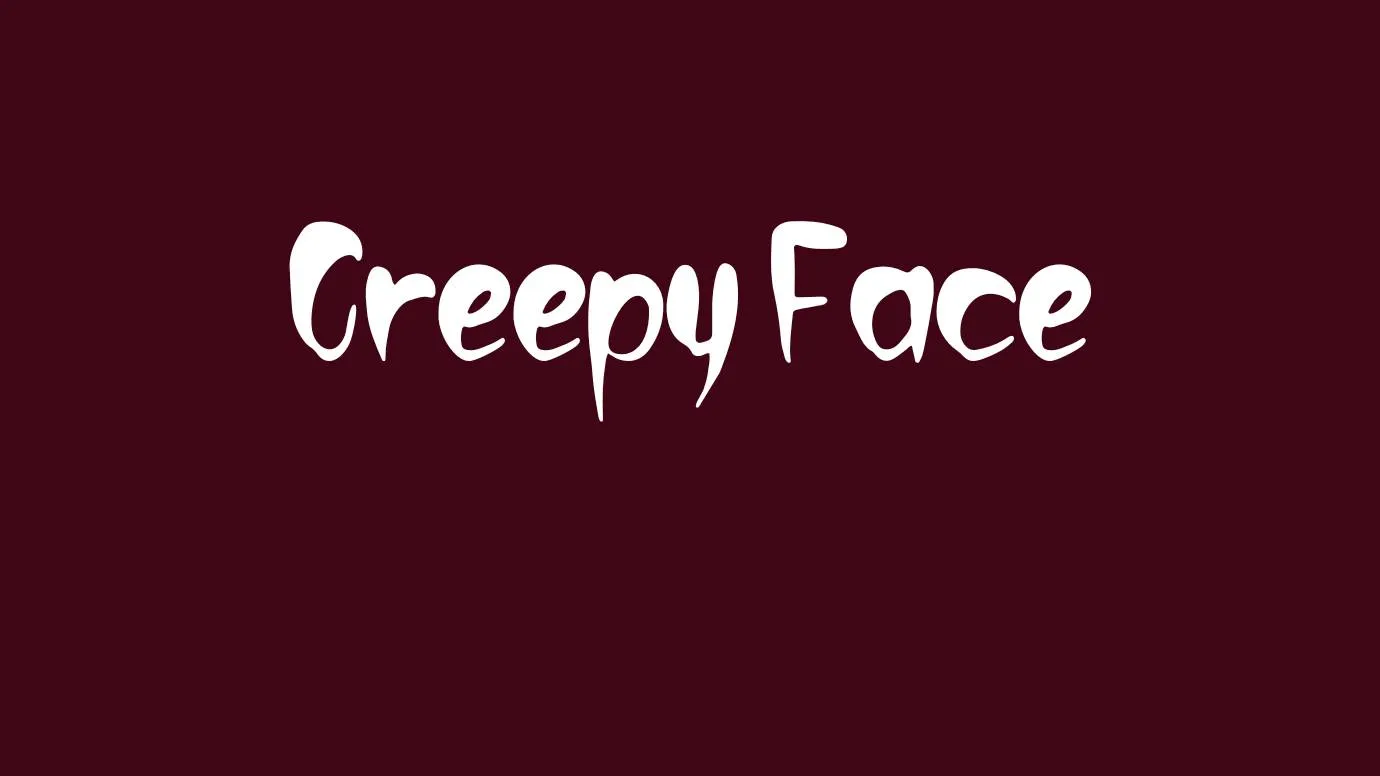
Creepy Face Font Free Download
Creepy Face is a very unique and attractive fancy-type font. It was designed by Anggi Hermawan and manufactured by Forberas Club. It has one regular style but you can make so many interesting projects by using this font.
It has amazing features as this font contains 263 characters, 233 glyphs,s and 1000 units per Em The weight of the font is Bold and its width is medium (normal). Unicode supported 2.0 and BMP only.
Creepy Face Font